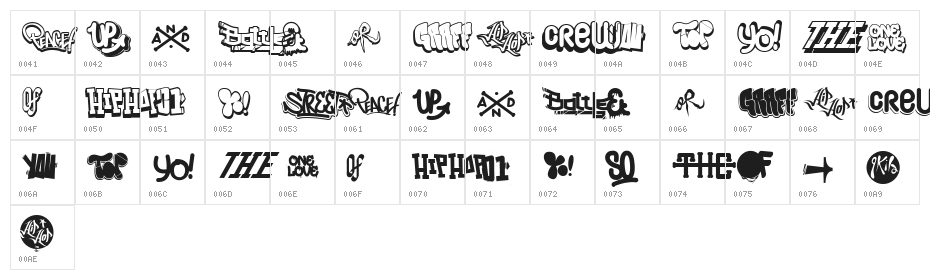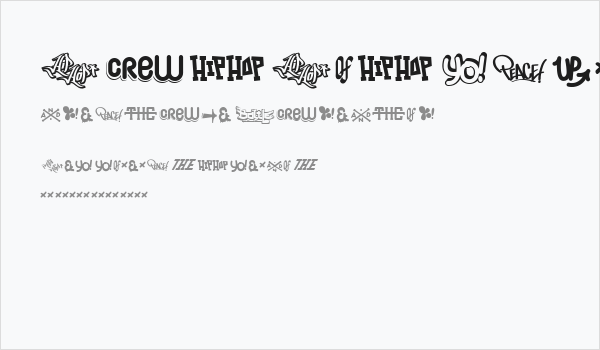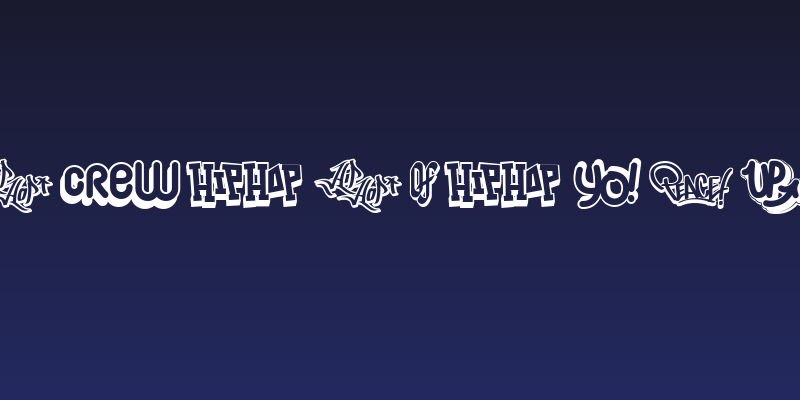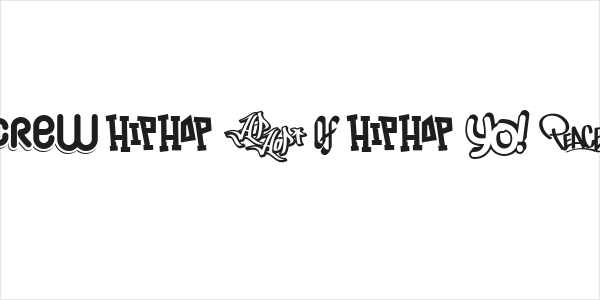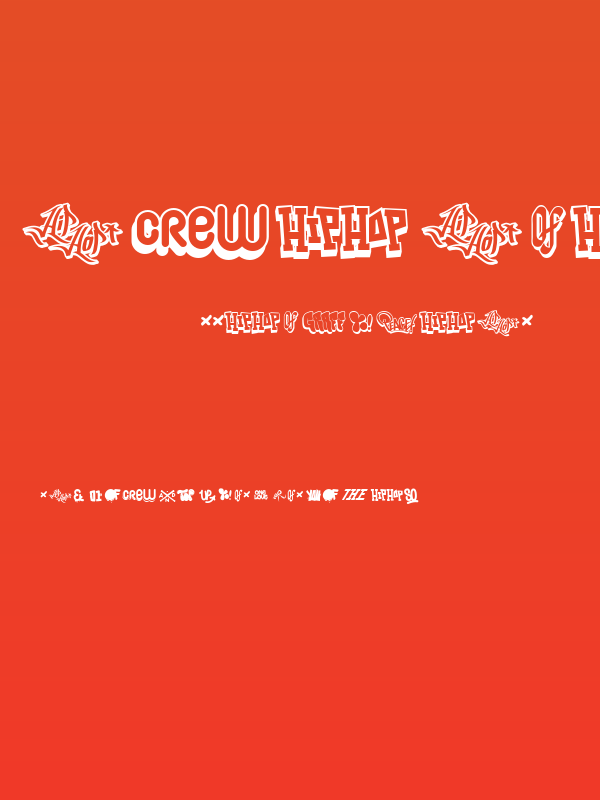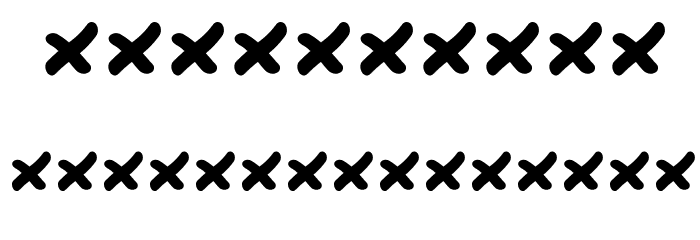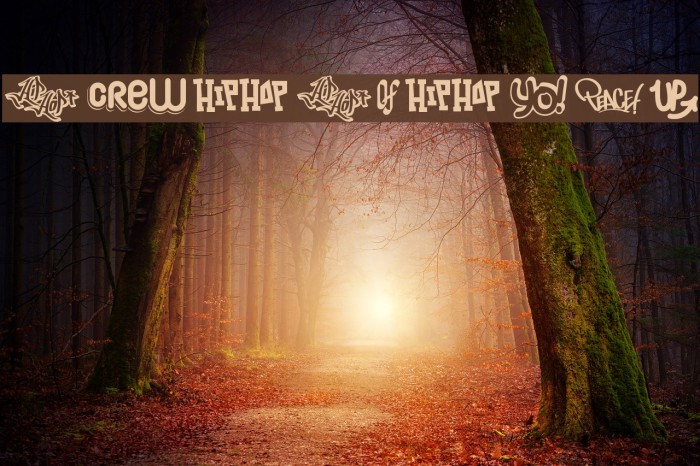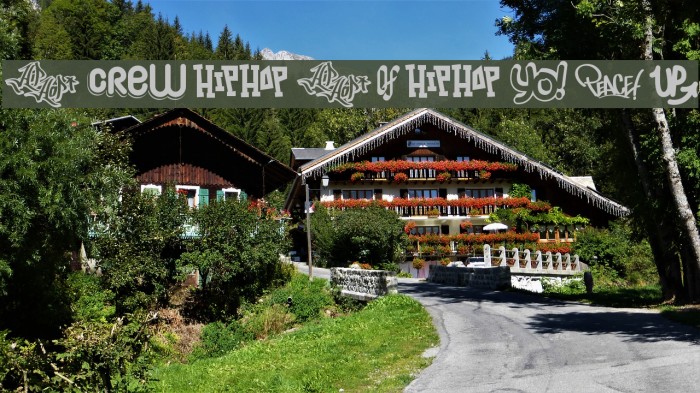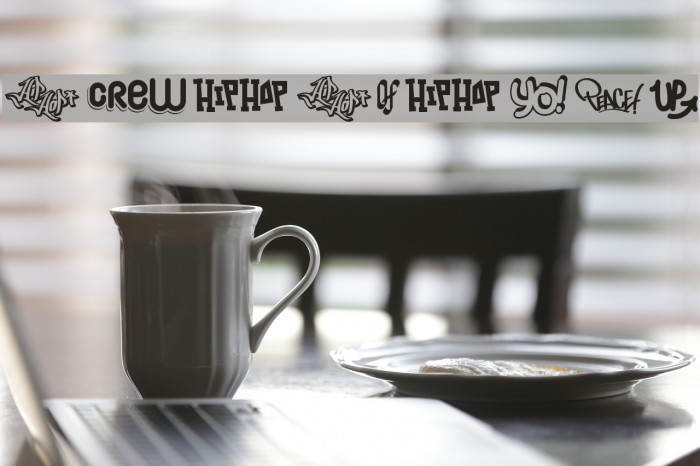
Hip Hop Lab1 Font
Hip Hop Lab1 Description
This font embodies the vibrant and dynamic essence of street art and hip-hop culture. It features bold, exaggerated characters with a graffiti-inspired aesthetic. The letters are highly stylized, with varying thickness and playful, energetic forms. The font includes unique embellishments and flourishes, adding to its urban and edgy feel. It's designed to capture attention and convey a sense of movement and rhythm, making it perfect for projects that aim to evoke a sense of rebellion and creativity.
| Overall Style | Urban, Edgy, Creative |
| Proposed Projects | Ideal for music album covers, streetwear branding, event posters, and urban-themed designs. |